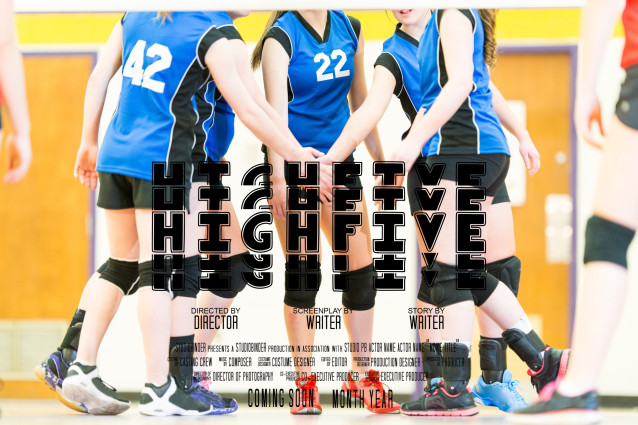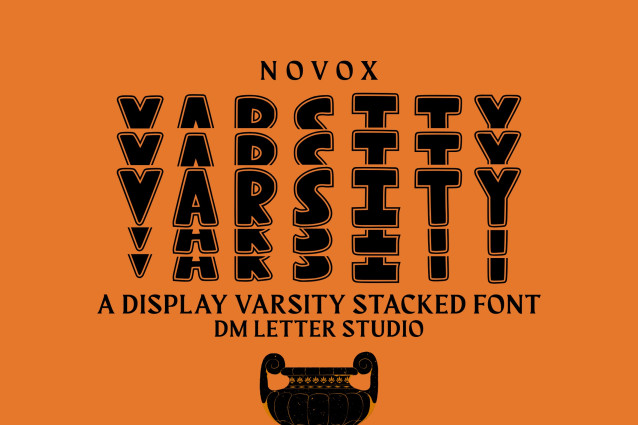
Novox Varsity Stacked Font
Novox Varsity Stacked is a bold, sporty font with a classic varsity style arranged in a powerful stacked layout. Designed to evoke school spirit, athletic pride, and vintage collegiate vibes, this typeface is perfect for team gear, campus-themed designs, sports merchandise, motivational quotes, and standout headings. The stacked orientation gives it extra impact, making your text instantly eye-catching and confident.